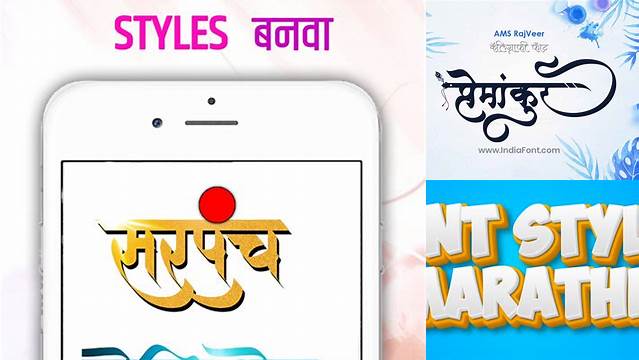
Create Marathi Fonts Online Free: A Complete Guide
Are you looking to create beautiful and unique Marathi fonts online for free, guys? You've come to the right place! This comprehensive guide dives deep into the world of Marathi font creation, exploring the best free online tools, tips, and tricks to help you design stunning typography. Whether you're a seasoned designer or a complete beginner, this article will equip you with the knowledge you need to bring your Marathi font ideas to life. We'll cover everything from the basics of font design to advanced techniques for creating professional-quality fonts. So, let's get started and unlock the power of Marathi font creation!
Understanding the Basics of Marathi Font Design
Before we jump into the tools, it's crucial to understand the fundamentals of Marathi font design. Marathi, a Devanagari script language, presents unique challenges and opportunities for typography. The distinctive curves, strokes, and matras (vowel markers) require a keen eye for detail and a deep understanding of the script's structure. Let's break down the key elements:
- Characters: The core building blocks of your font. Marathi fonts consist of consonants (Vyanjan), vowels (Swar), and various conjunct consonants ( যুক্তাক্ষর) that combine multiple characters.
- Glyphs: Each character variation or form is called a glyph. This includes different styles for a single letter, like the variations in 'क' (ka) to match different vowel signs.
- Kerning: Adjusting the spacing between characters for optimal readability. Kerning is particularly important in Marathi due to the complex shapes and the overlapping nature of some characters. Poor kerning can make text look cramped or disjointed.
- Ligatures: Combining two or more characters into a single glyph to improve the appearance and flow of text. Ligatures can add a touch of elegance and sophistication to your Marathi font.
- Font Styles: Consider different styles like regular, bold, italic, and bold-italic to provide versatility for your users. Each style presents a new design challenge, and you must ensure consistency in your design.
- Readability: Focus on creating fonts that are easy to read, especially in longer text passages. Legibility is crucial for effective communication. Choose a font size that suits the context and ensure the font is legible across devices.
To be successful in Marathi font creation, you need to understand these basics. This involves studying existing Marathi fonts, analyzing their characteristics, and experimenting with different design ideas. The goal is to create a font that is not only visually appealing but also functional and easy to use. By grasping these principles, you'll be well-prepared to use the online tools we'll discuss.
Top Free Online Tools for Marathi Font Creation
Now, let's explore some of the best free online tools that can help you create your own Marathi fonts. These tools offer various features and functionalities, catering to different levels of expertise. We'll look at their features, ease of use, and how they can assist you in your font design journey.
FontForge (Open Source, Downloadable): While not strictly an "online" tool, FontForge is a powerful, open-source font editor that runs on various operating systems. It allows you to design fonts from scratch, import existing fonts, and modify their characters. It's more complex than web-based tools but offers greater control and flexibility. If you're serious about font design, FontForge is a fantastic choice. It supports the Devanagari script and provides all the necessary features for creating professional-quality Marathi fonts. Learning curve is a bit steep, but the effort is totally worth it.
BirdFont (Open Source, Downloadable): Similar to FontForge, BirdFont is a free, open-source font editor that's relatively user-friendly. It is great for beginners. BirdFont also supports creating fonts for various scripts, including Devanagari. It's a solid choice if you want a straightforward tool with a good user interface and a good set of basic features.
Glyphs (Commercial): A full-featured font editor for macOS. It's not free, but it's a favorite among professional designers. Glyphs offers a wide range of tools and features for creating complex fonts, including support for advanced OpenType features, and its user interface is well-designed and intuitive. If you are ready to invest in a dedicated font editor, Glyphs is one of the best options available. It's a robust and powerful tool for anyone serious about font design.
Online Font Generators (Limited Functionality): Some websites offer basic font-creation tools where you can modify existing fonts or create simple fonts based on predefined templates. These tools are generally easy to use but offer limited customization options. While they are perfect for quick experiments or simple projects, they aren't suitable for designing complex Marathi fonts.
Remember, each tool has its strengths and weaknesses. Consider your skill level, the complexity of your project, and your budget when choosing a tool. Experiment with several tools to find the one that best suits your needs.
Remember to practice consistently, experiment with different styles, and seek feedback. By embracing these practices, you'll be well on your way to becoming a successful Marathi font designer. So, go ahead, explore the world of Marathi font creation and craft your own digital Marathi script masterpieces. Happy designing!